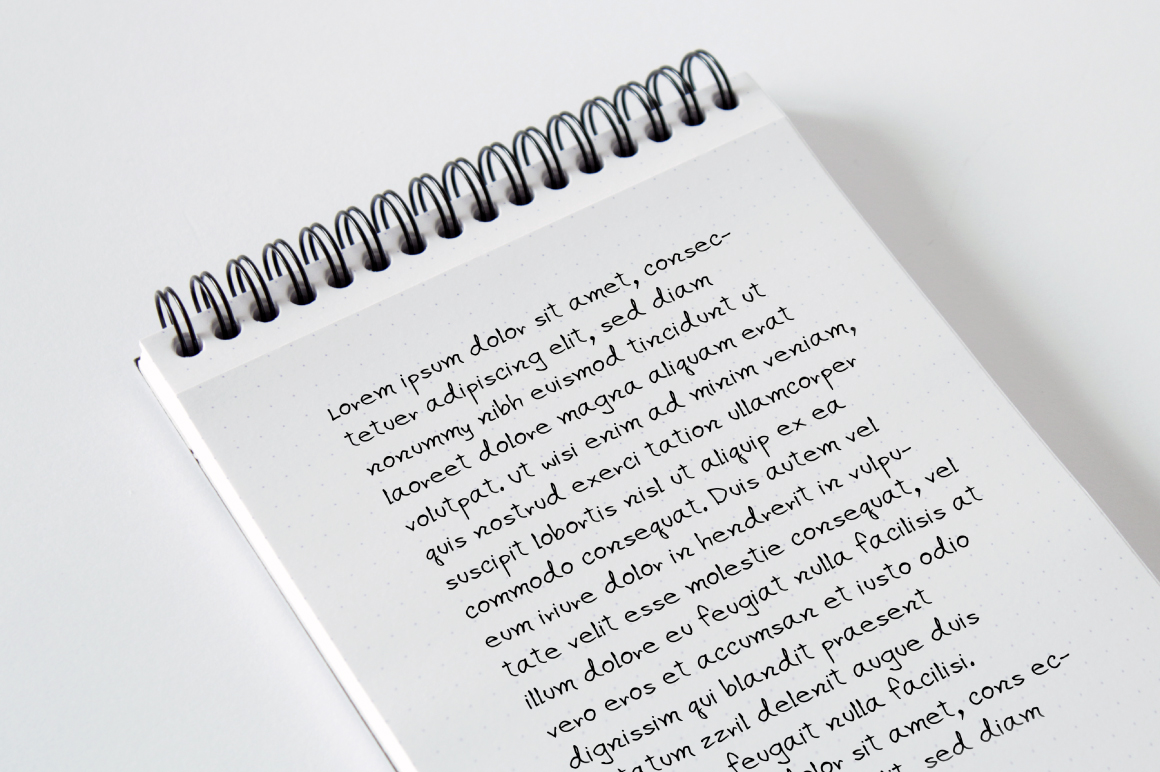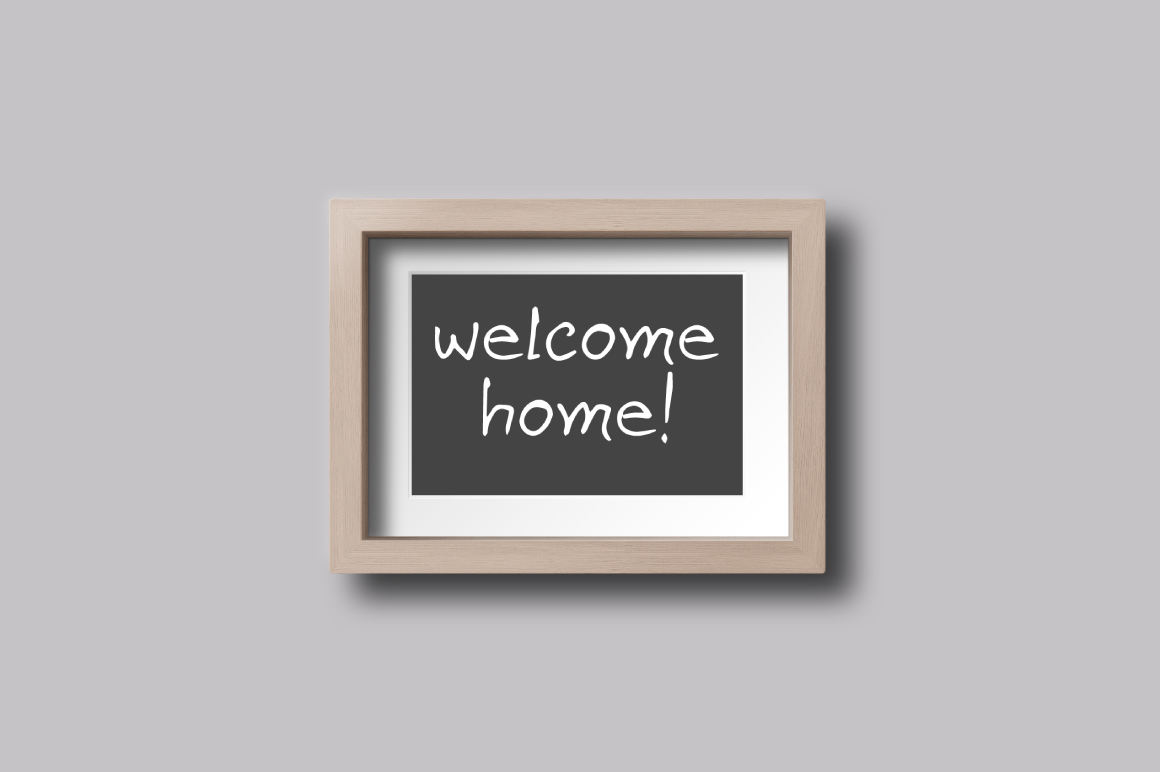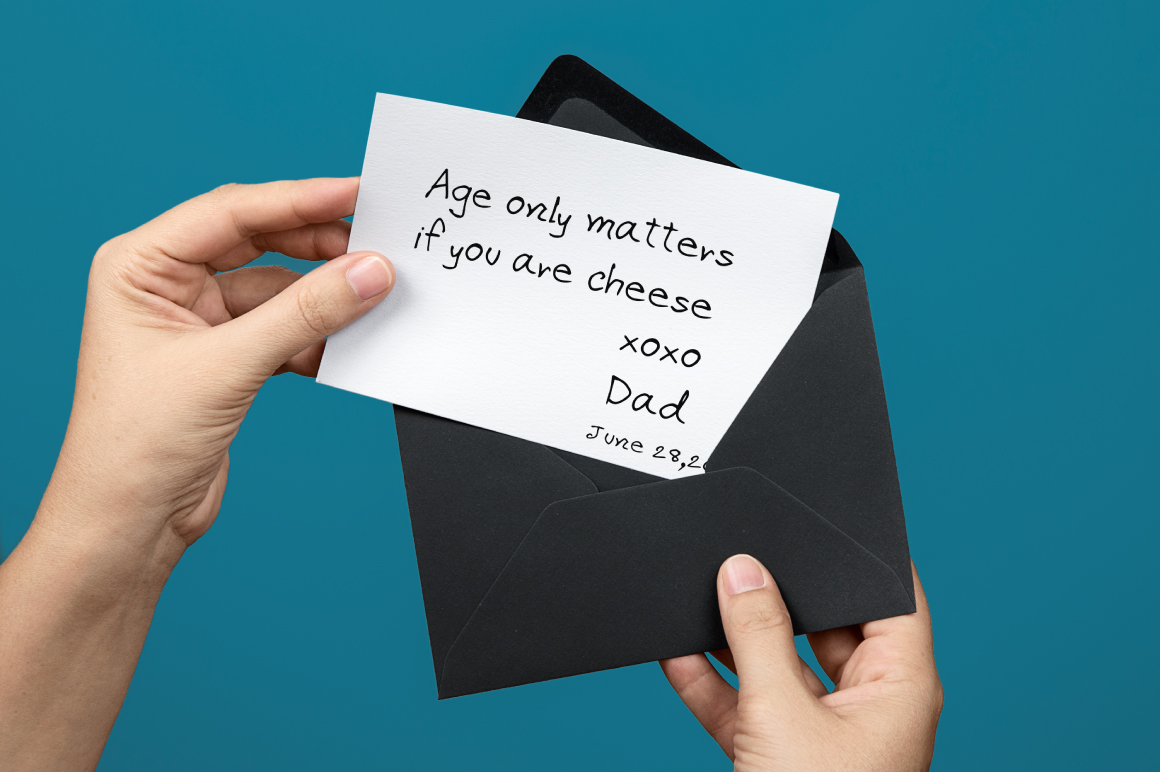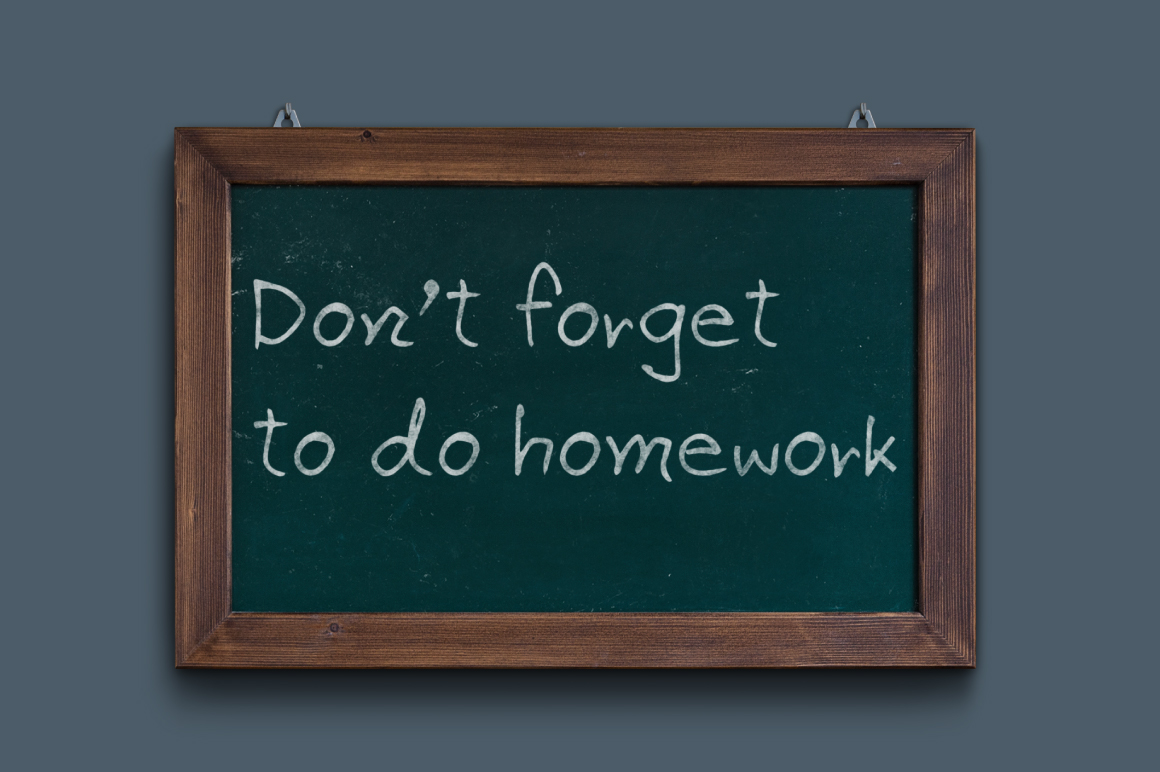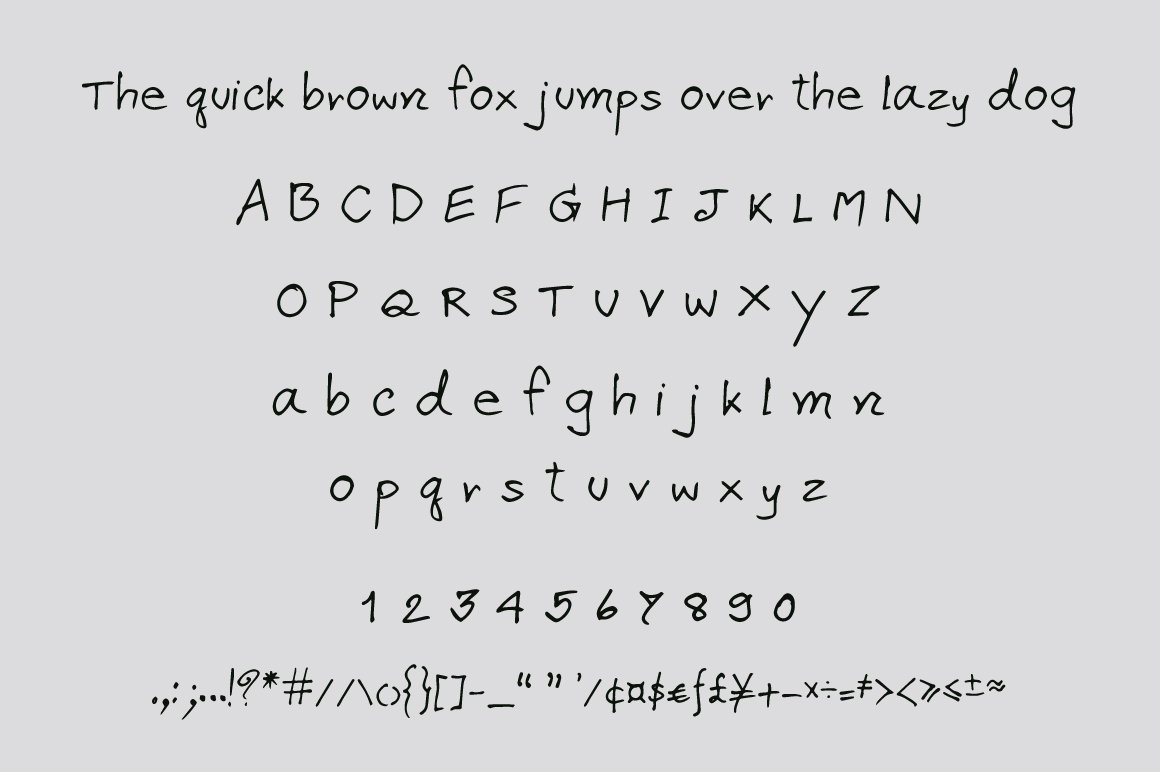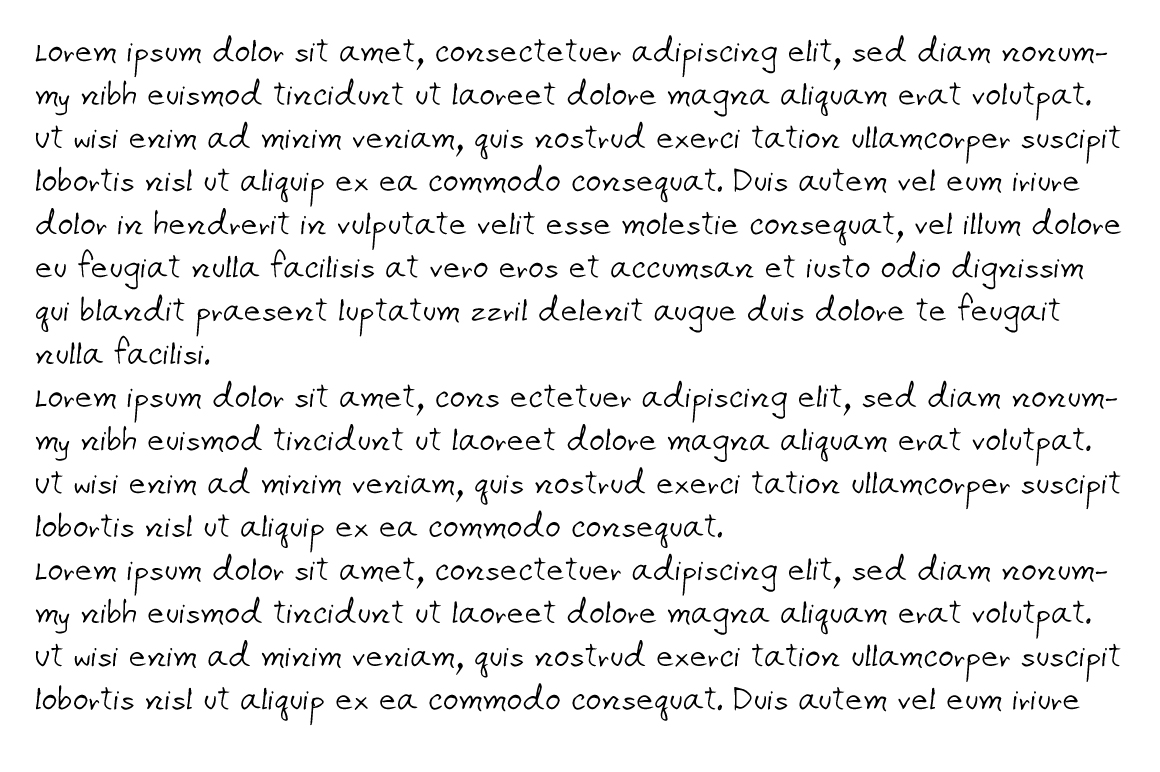
Introducing Apirak Font: A Playful and Legible Handwriting Typeface
Are you tired of using the same old fonts in your designs? Look no further than Apirak Font, a beautiful handwriting typeface written with a fountain pen. This unique font is the perfect addition to any design project, offering a legible and playful touch that’s sure to capture the attention of your audience.
The Story Behind Apirak Font
Apirak Font is a carefully crafted typeface that showcases the elegance and fluidity of handwriting with a fountain pen. The font’s creator has poured their heart and soul into designing a font that is not only aesthetically pleasing but also highly legible. The result is a font that is perfect for a wide range of design applications, from branding and advertising to packaging and digital media.
Key Features of Apirak Font
- Handwritten with a fountain pen: Apirak Font is written with a fountain pen, giving it a unique and distinctive feel that’s perfect for designs that require a personal touch.
- Legible and playful: The font is designed to be both legible and playful, making it perfect for designs that require a balance of professionalism and whimsy.
- Perfect for creative projects: Apirak Font is ideal for designers and crafters who want to add a touch of personality to their work.
Why Choose Apirak Font?
There are many fonts available to designers and crafters, but Apirak Font stands out from the crowd. Here are just a few reasons why:
- Unique and distinctive: Apirak Font is a one-of-a-kind typeface that’s sure to make your designs stand out.
- Highly legible: Despite its playful nature, Apirak Font is highly legible, making it perfect for designs that require a clear and concise message.
- Versatile: Apirak Font can be used in a wide range of design applications, from digital media to print materials.
Using Apirak Font in Your Designs
Apirak Font is easy to use and can be incorporated into your designs in a variety of ways. Here are a few ideas to get you started:
- Branding and advertising: Use Apirak Font to add a personal touch to your brand’s marketing materials, such as business cards, brochures, and advertisements.
- Packaging design: Apirak Font is perfect for packaging design, adding a touch of whimsy and personality to product labels and packaging.
- Digital media: Use Apirak Font in your digital designs, such as social media graphics, blog posts, and website headers.
Tips for Pairing Apirak Font with Other Fonts
When pairing Apirak Font with other fonts, it’s essential to choose fonts that complement its playful and legible nature. Here are a few tips to keep in mind:
- Pair with a clean sans-serif font: Pairing Apirak Font with a clean sans-serif font, such as Arial or Helvetica, creates a nice contrast and adds visual interest to your design.
- Use a serif font for headings: Using a serif font for headings and Apirak Font for body text creates a nice hierarchy and adds depth to your design.
Apirak Font is a unique and versatile typeface that’s perfect for designers and crafters who want to add a touch of personality to their work. With its legible and playful nature, Apirak Font is ideal for a wide range of design applications, from branding and advertising to packaging and digital media. Whether you’re looking to create a bold and eye-catching design or a subtle and sophisticated one, Apirak Font is the perfect choice.